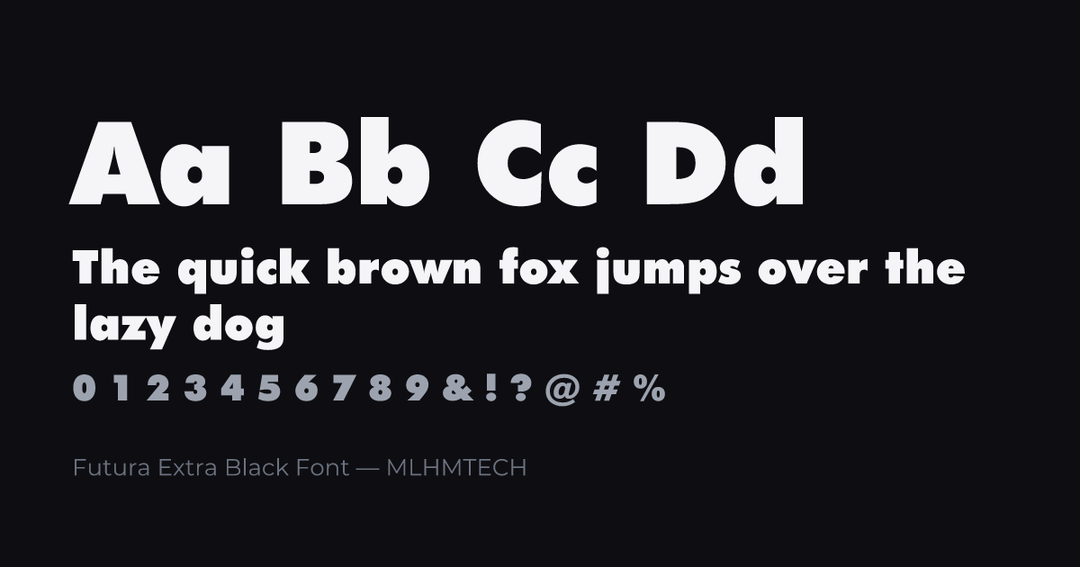
Futura Extra Black Font
Futura Extra Black is a bold geometric sans-serif font, ideal for headlines and branding that demand attention.
Futura Extra Black is a heavy weight of the iconic Futura typeface, known for its clean geometric shapes and modern feel. This font is perfect for creating strong visual impact in posters, logos, and display typography.
Its extra bold strokes ensure high legibility even at large sizes, making it a favorite among designers for titles and headings. The font's timeless design works well in both print and digital media.